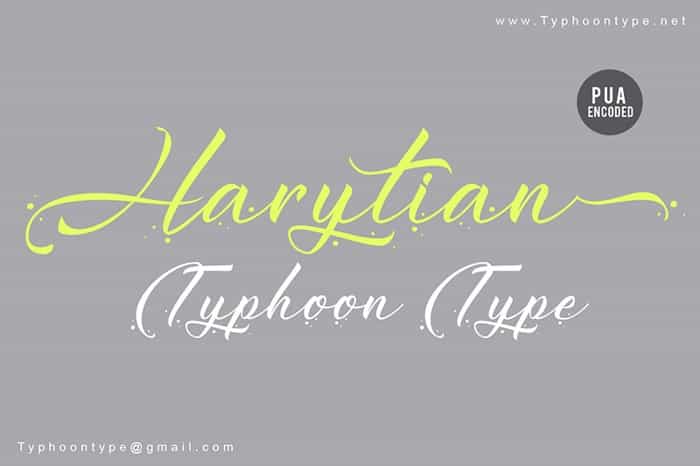
Discover Harytian Calligraphy Font, part of the Calligraphy collection—a versatile and unique font perfect for adding a personal touch to your projects. Download it for free and enjoy crafting designs with style, from invitations to social media posts. This font is available exclusively for personal use, giving you the freedom to create without limits. Unlock your creativity with Harytian Calligraphy Font today!
Harytian is a gorgeous script font that is sophisticated, chic and contemporary. Harytian is the best for logos, apparel, T-shirt, Hoodie, quotes and product packaging or anything that needs a typographical turbo-boost. By giving more emphasis to fast lines and fine details,